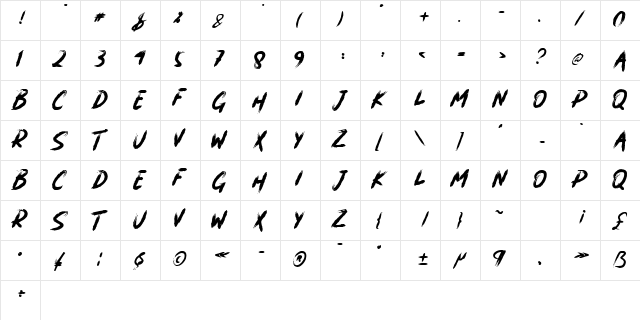
Batsand Regular
| Designer | Lettersiro 2018 |
Design Context for Batsand Typeface
Batsand is a composed and adaptable typeface that performs quietly and consistently across a wide range of design contexts.